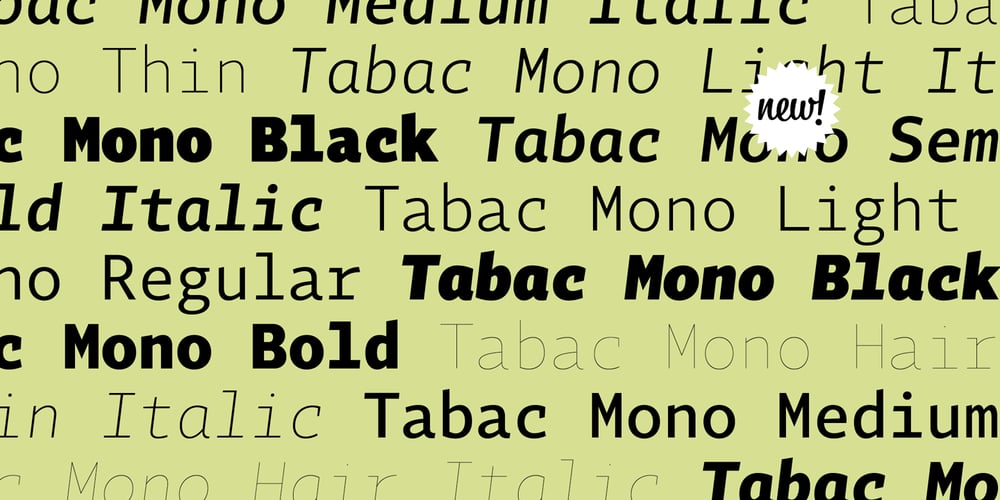
Tabac Mono Font Family was designed by Tomáš Brousil and published by Suitcase Type Foundry. Tabac Mono contains 16 styles and family package options. A big advantage of the font family is a consistent width of all sixteen styles, so it is possible to switch between them without changing the typesetting. Tabac Mono extends the means of expression of the other fonts in the font superfamily, with which it shares several OpenType functions, including indexes, fractions, several types of numbers and alternative shapes of the most distinctive letters of the Latin alphabet (a, g, Q), which you can use to significantly influence the character of the final composition.